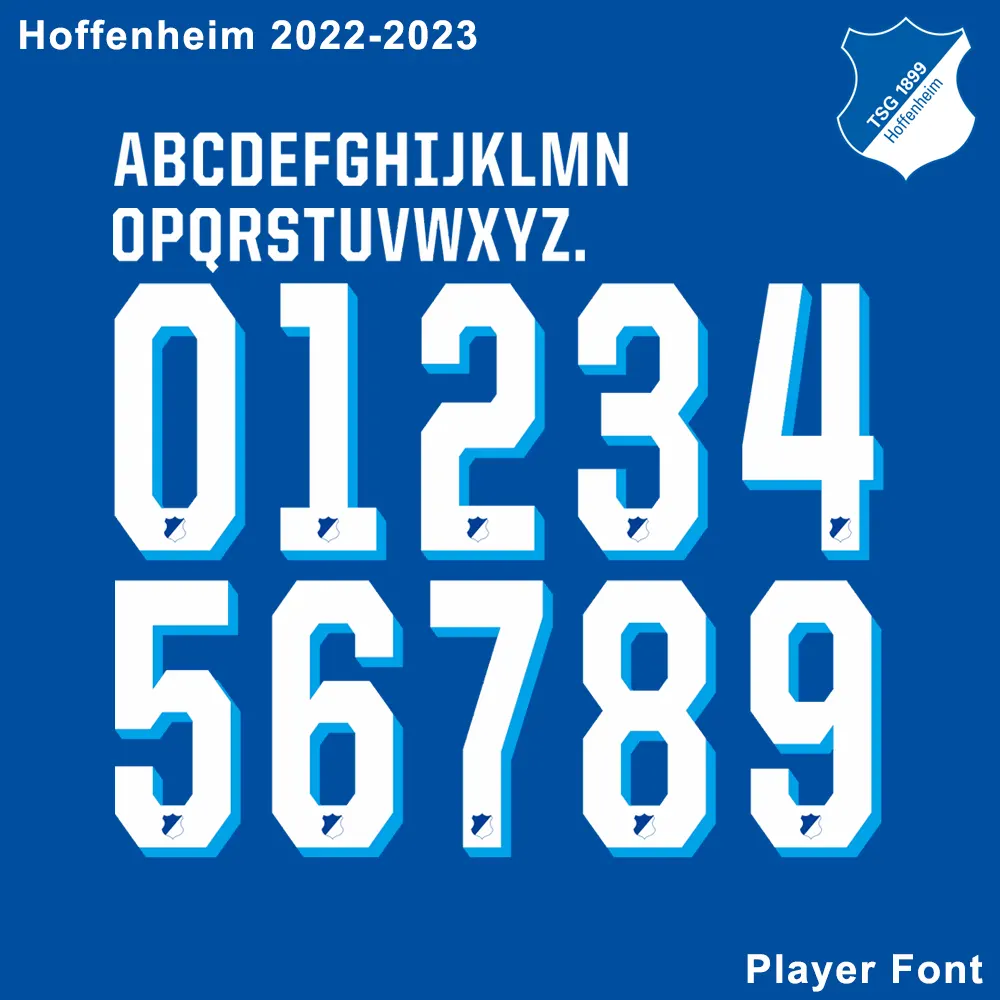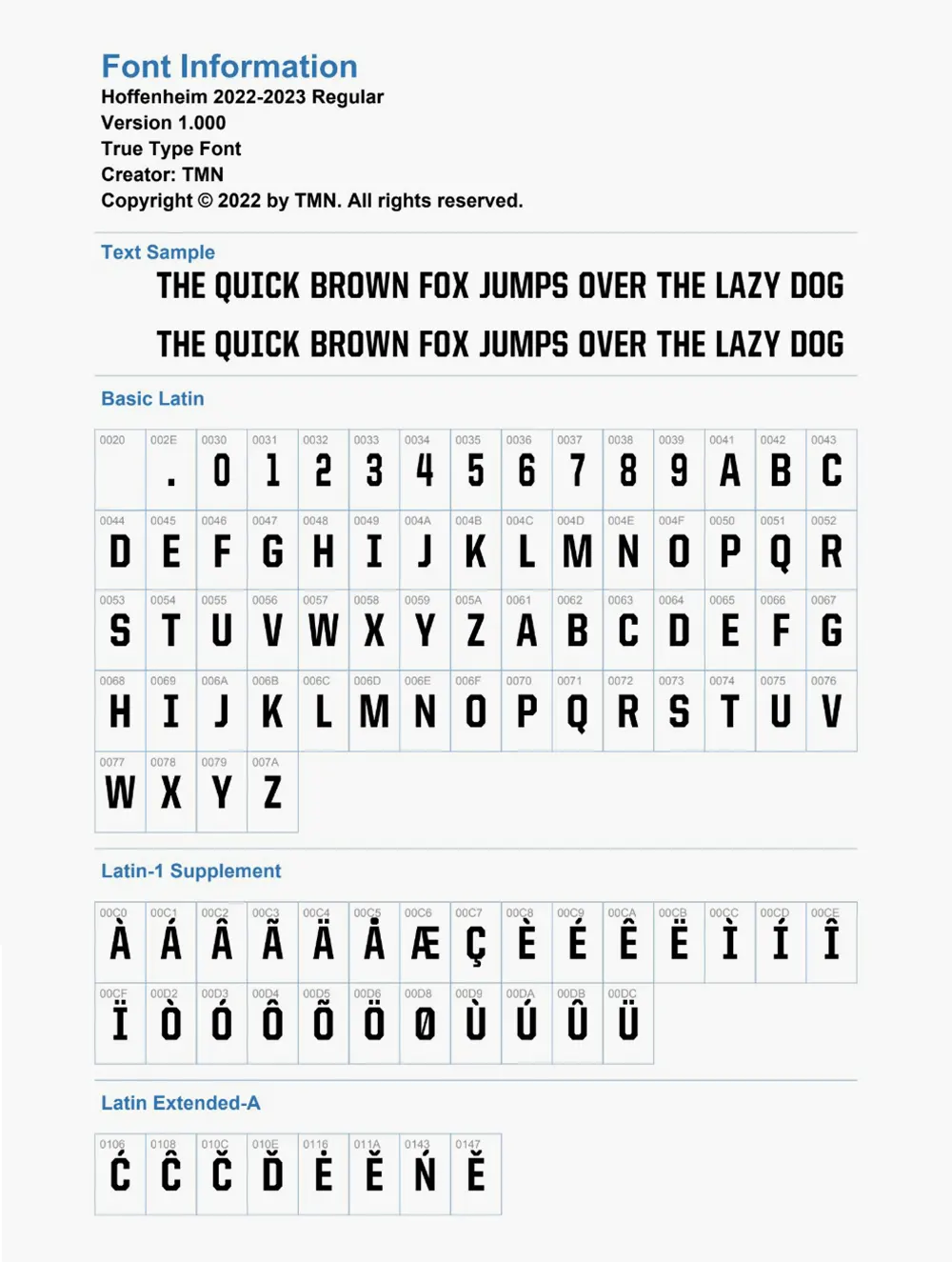
Bring the cutting-edge aesthetic of the Bundesliga to your projects with the TSG Hoffenheim 2022-2023 Kit Font.
The 2022-23 season kits for TSG Hoffenheim were defined by a clean, vertical design language. This font kit is meticulously traced to match the proportions used on the match-worn jerseys, featuring a high-aspect ratio that looks sharp on both digital mockups and physical jerseys.
Full Character Set: Includes all uppercase letters (A-Z) and the specialized 0-9 number set used by the club in domestic competitions.